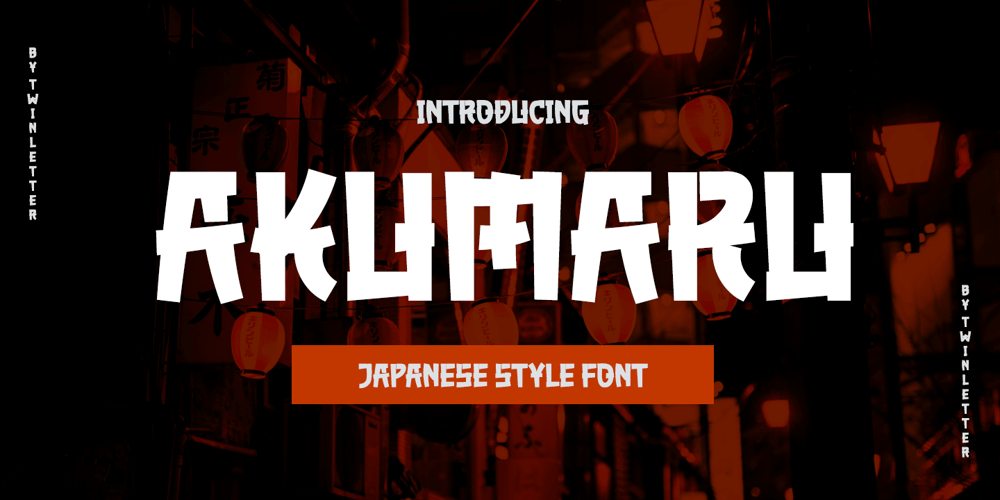
Akumaru Japanese Style Font Family was designed by Rozikan and published by Twinletter. Akumaru Japanese Style contains 1 styles and family package options. Akumaru, our newest font, is now available.In every area of the eye, there are typefaces made with unique and appealing shapes.if you want your unique project to be charming, unique, gorgeous, and sophisticated enough to hypnotize the entire audience. Then this font should be used in your project. because the letters and words in this typeface have a gorgeous, elegant, and pleasant appearance.Logotypes, food banners, branding, brochure, posters, movie titles, book titles, quotes, and more may all benefit from this font.Of course, using this font in your various design projects will make them excellent and outstanding; many viewers are drawn to the striking and unusual graphic display.Start utilizing this typeface in your projects to make them stand out.